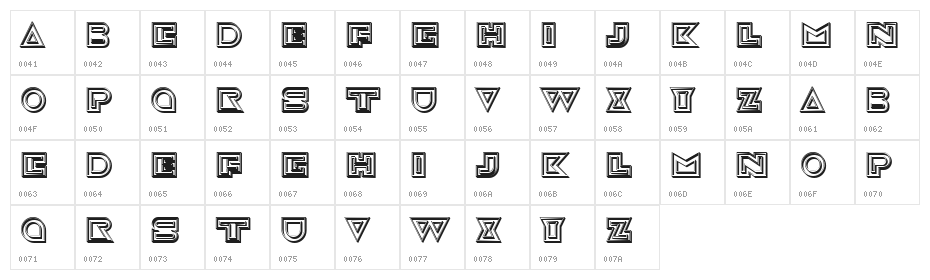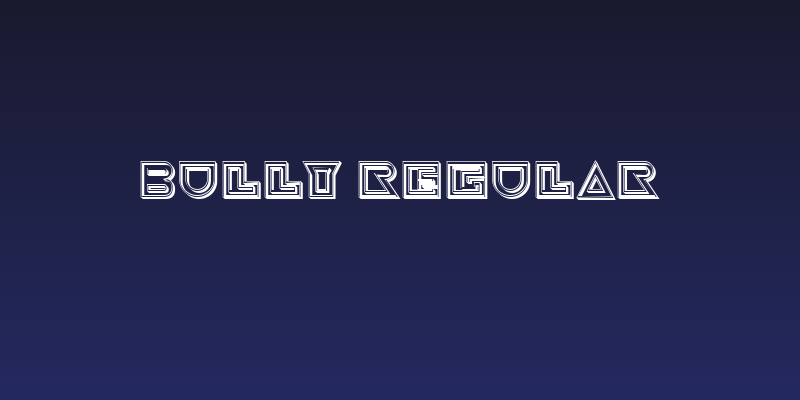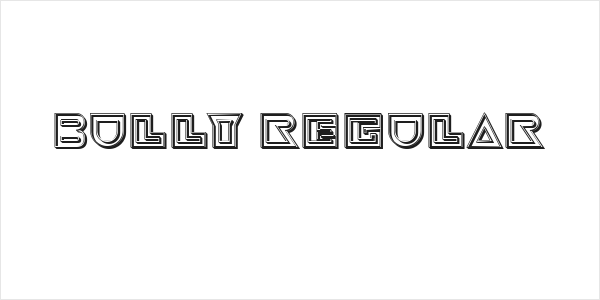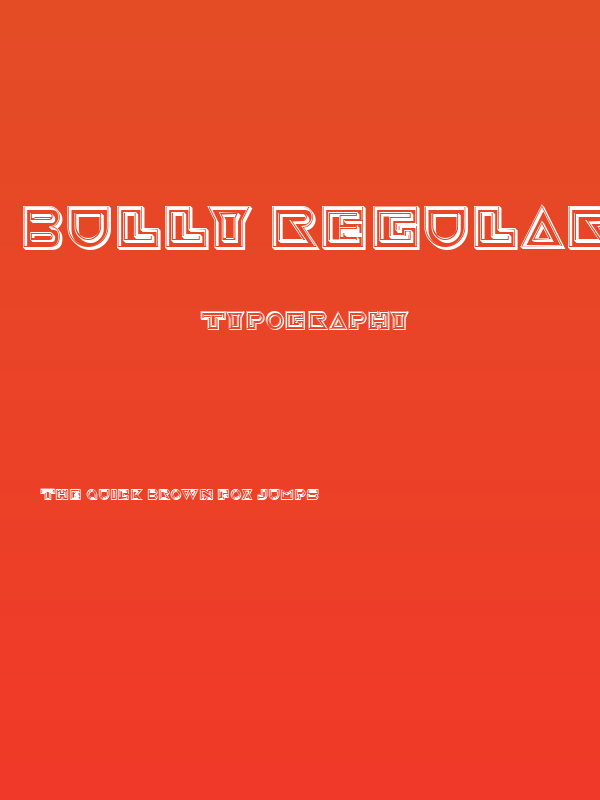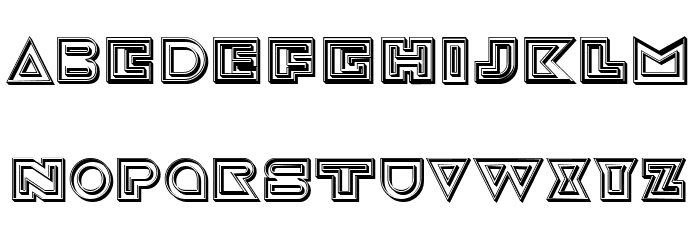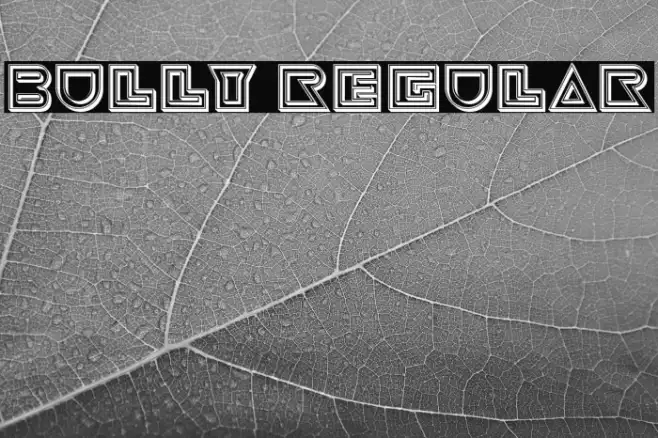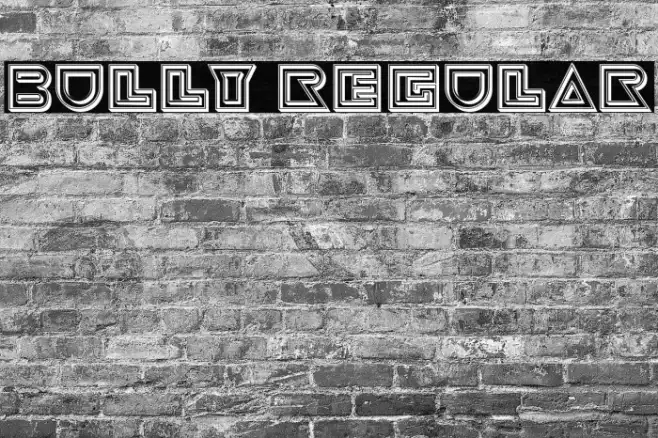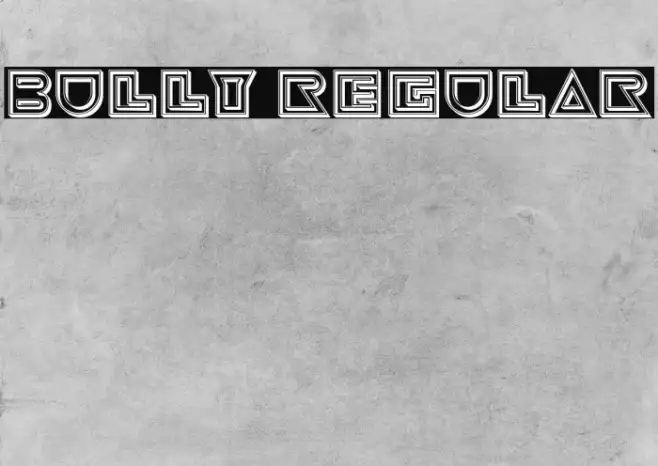
Bully Regular Font
Bully Regular Description
This font features a bold, geometric design with a distinct three-dimensional effect. Each character is outlined with a double line, creating a layered appearance that adds depth and visual interest. The angular shapes and sharp edges give it a modern, futuristic feel. The uppercase letters are particularly striking, with unique variations in line thickness and spacing that enhance the overall dynamic look. This font is ideal for making a strong visual impact, suitable for titles, logos, and any design project that requires a bold statement.